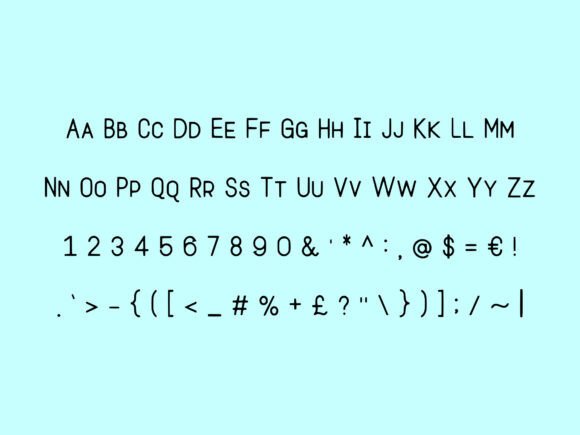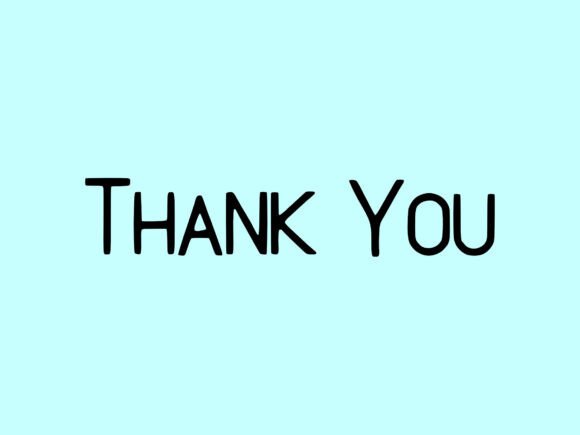
Introduction to Rough Mono Font
Imbue your creations with the unique character of Rough Mono text style.
👤 Author MagicalBlueStudios
With its subtly worn, uneven appeal, this font carries the essence of vintage, retro and industrial design Its monospaced format infuses an unexpected blend of contemporary yet rugged aesthetics, marking it an optimal choice for various projects from branding to t-shirt designs, from logo creation to digital design endeavors.
Key Features of Rough Mono Font
Why Choose Rough Mono Font?
Rough Mono Font offers exceptional quality and versatility, making it a valuable addition to your design toolkit. Whether you’re creating for personal projects or commercial use, Rough Mono Font delivers professional results.